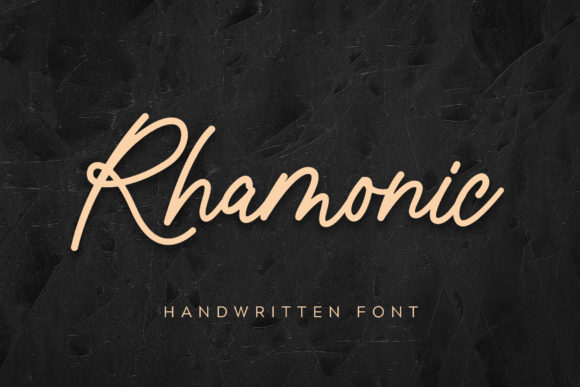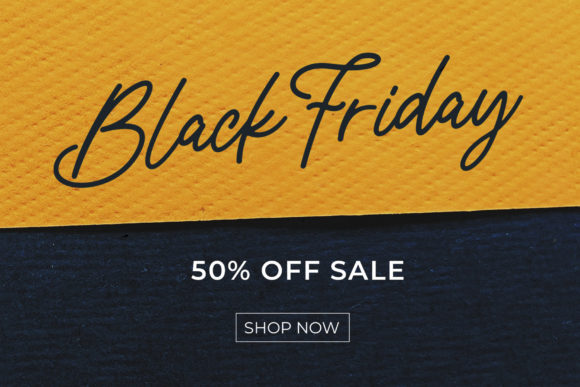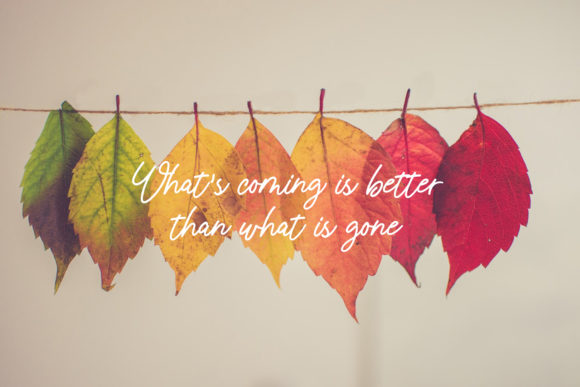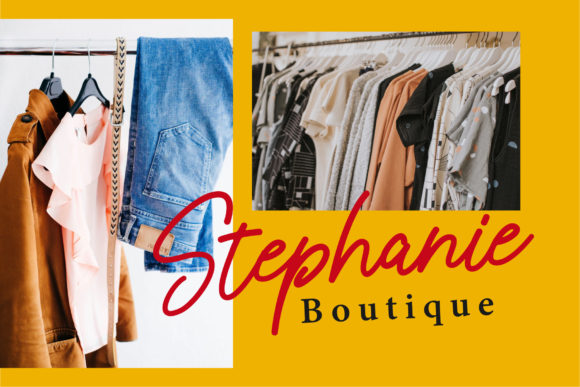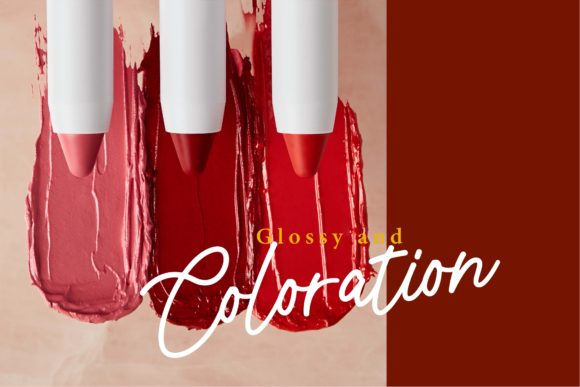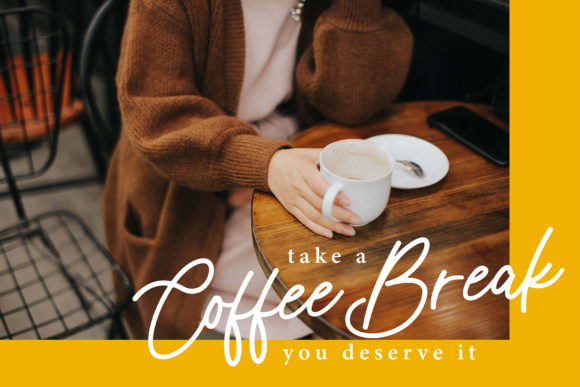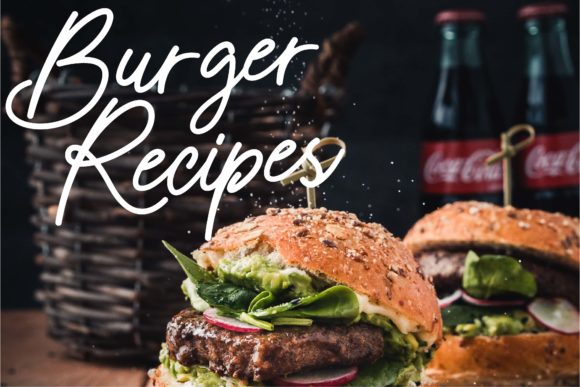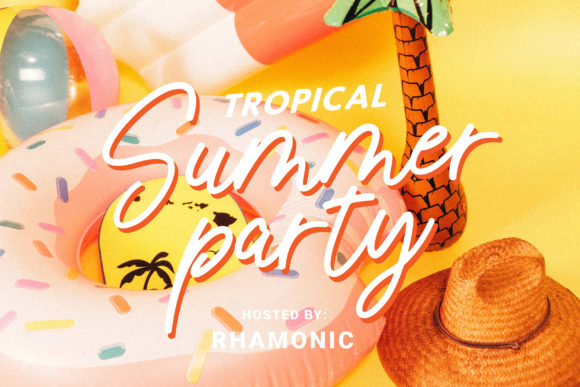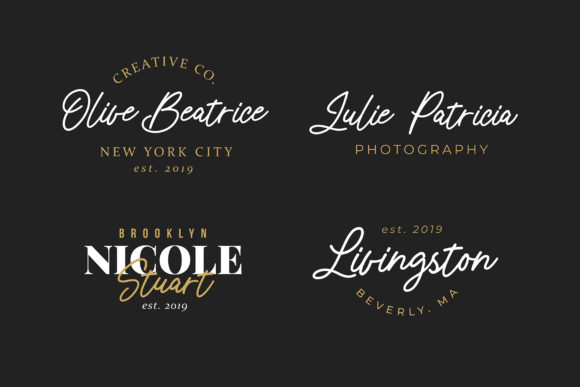
Rhamonic Font
About Rhamonic Font
Rhamonic a stylish handwritten font that will make your design stand out from the crowd. Get inspired by its casual coolness!